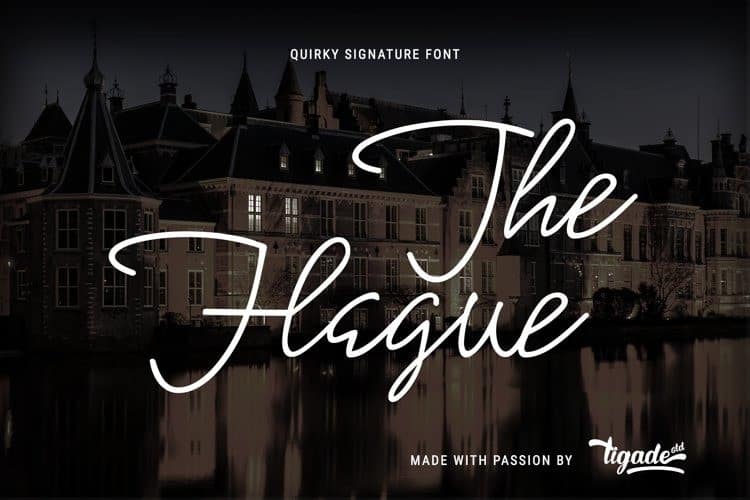
The Hague Handwritten Font
The Hague Font is a hand-written, signature typeface family with five weights, multiple alternates, and natural ligatures. Inky and expressive yet readable and functional, this typeface is designed to look personal and be useful in a variety of applications.
It can stand strong on its own or be an excellent complement to pair with other typefaces. Choose from any of the five subtle weights to meet the need. Braisetto is great for branding, packaging, display, products, cards, and more.